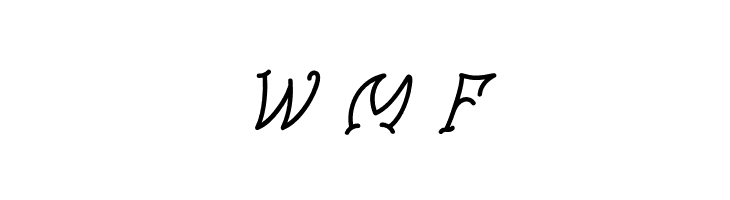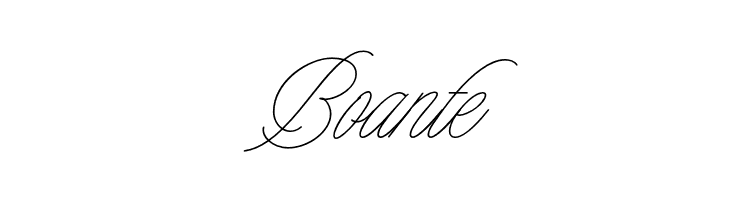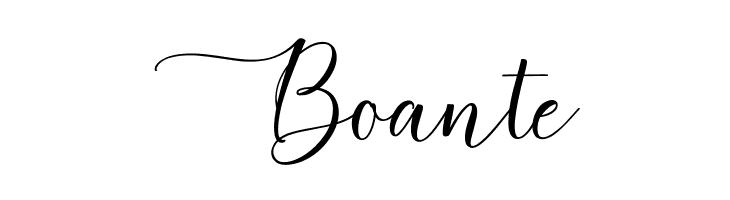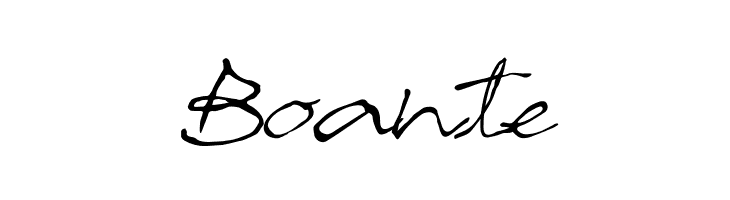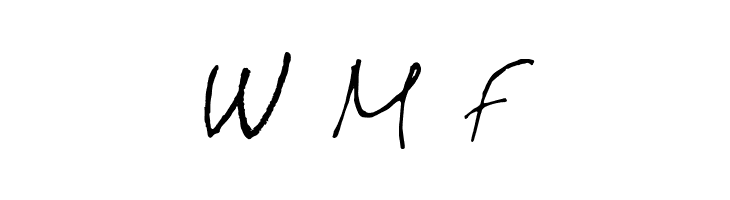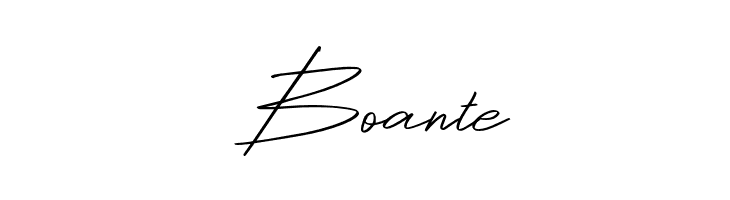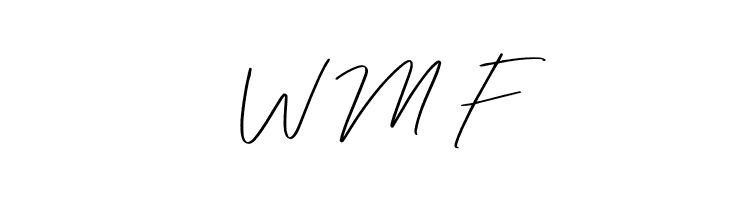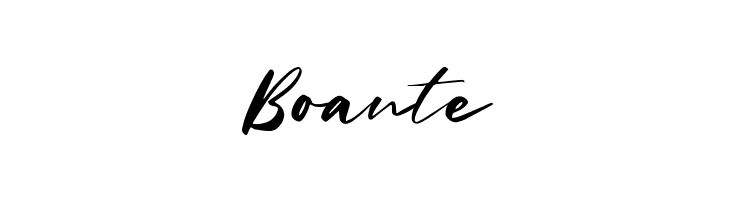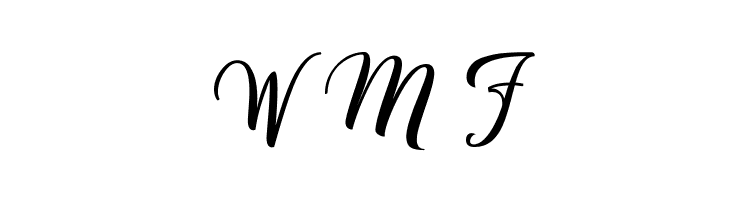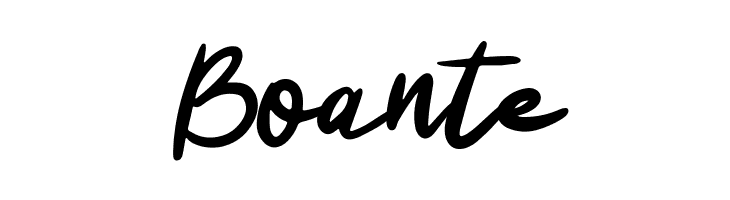
Elegant, high-contrast script with decorative flourishes.
A lively script font with flowing, cursive strokes and a playful character.
A delicate and elegant script font with flowing, cursive letterforms.
A fluid and elegant script font with smooth, flowing lines.
A modern, elegant script font with flowing curves and intricate loops.
A modern, elegant script font with flowing cursive letters and intricate flourishes.
A graceful and flowing script font with interconnected letters and a hand-drawn quality.
A lively, cursive handwritten font with expressive, flowing strokes.
An elegant script font with intricate swashes and flowing lines.
A playful, hand-drawn font with a whimsical and informal style.
A bold, hand-drawn font with a textured, sketch-like appearance.
A dynamic, brush-style font with expressive strokes and a bold, artistic flair.
A playful, hand-drawn font with a chalk-like texture and dynamic strokes.
A dynamic, expressive handwritten font with fluid, cursive strokes.
An ornate and decorative font with intricate flourishes and sharp serifs.
A graceful and elegant script font with flowing, connected strokes.
An elegant, flowing script font with graceful loops and swirls.
A playful, chalk-like font with a hand-drawn, textured appearance.
An elegant, cursive script font with a flowing, handwritten style.
An elegant script font with flowing, cursive letterforms and delicate swashes.
A flowing, elegant script font with a handwritten style.
A graceful script font with fluid, connected strokes and elegant style.
An elegant and flowing script font with ornate, decorative letterforms.
An elegant, high-contrast cursive script with ornate swashes and flourishes.
A bold, lively script font with fluid, natural handwriting style.
A bold, dynamic script font with brush-like strokes and a cursive slant.
A flowing, cursive script font with elegant, connected strokes.